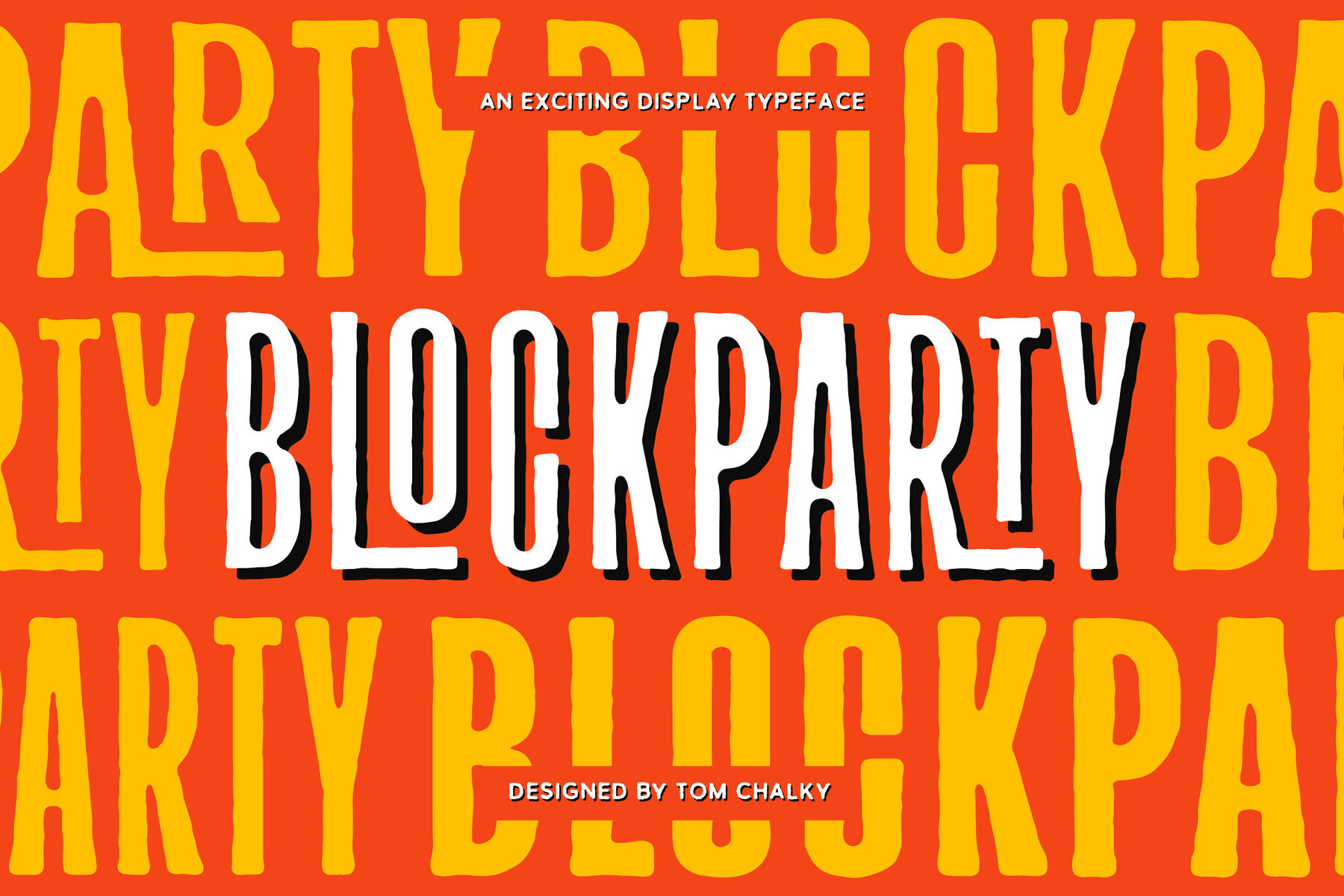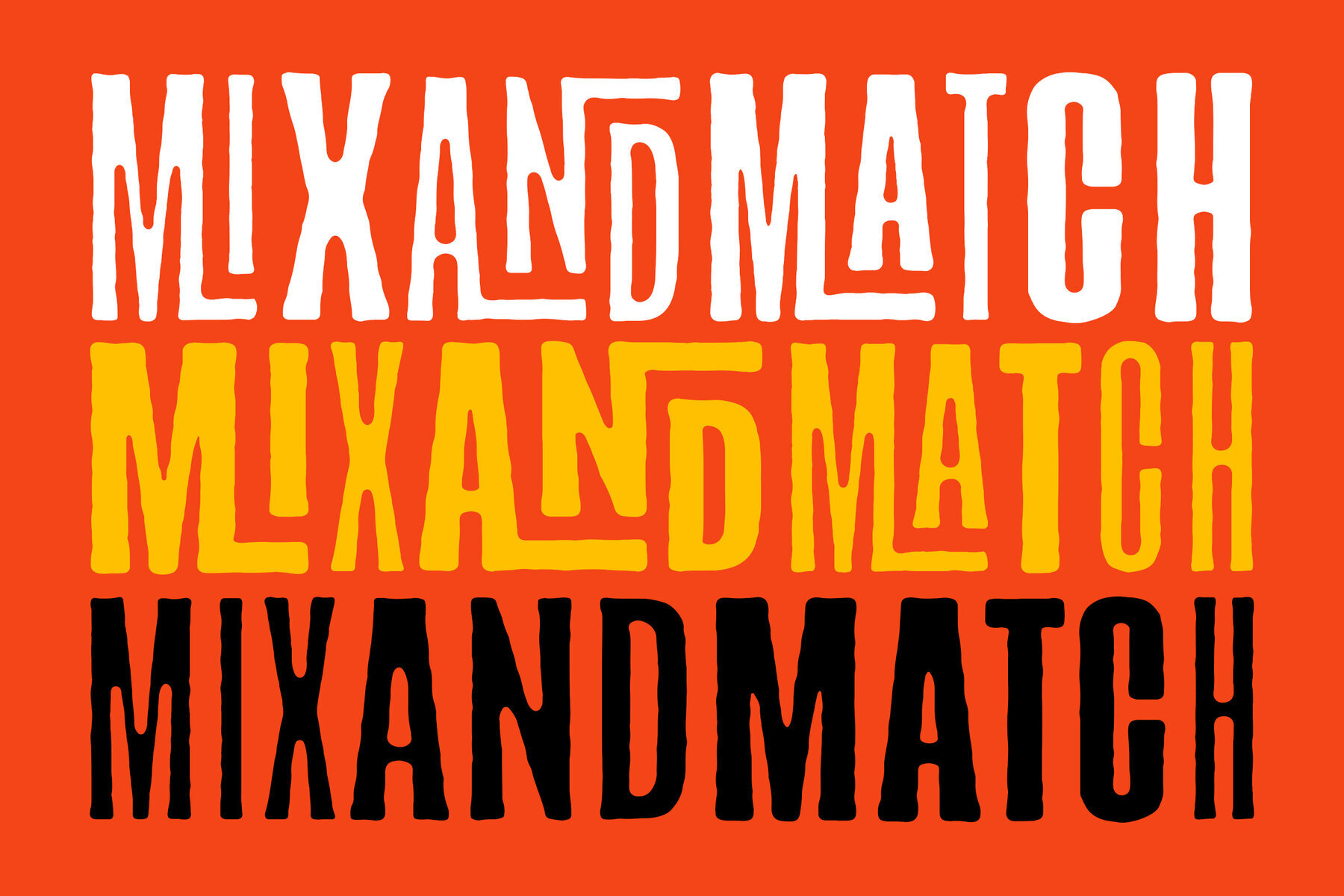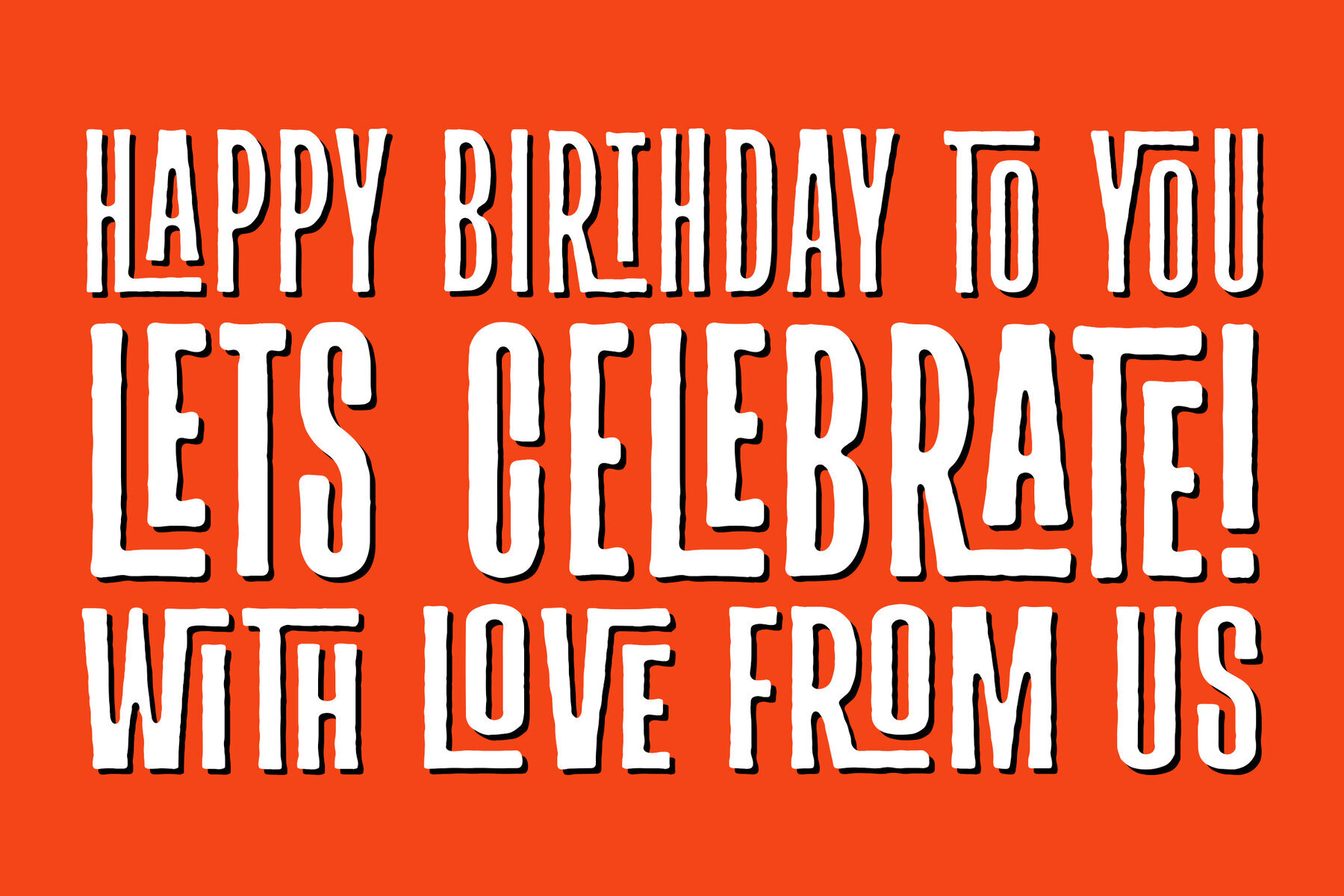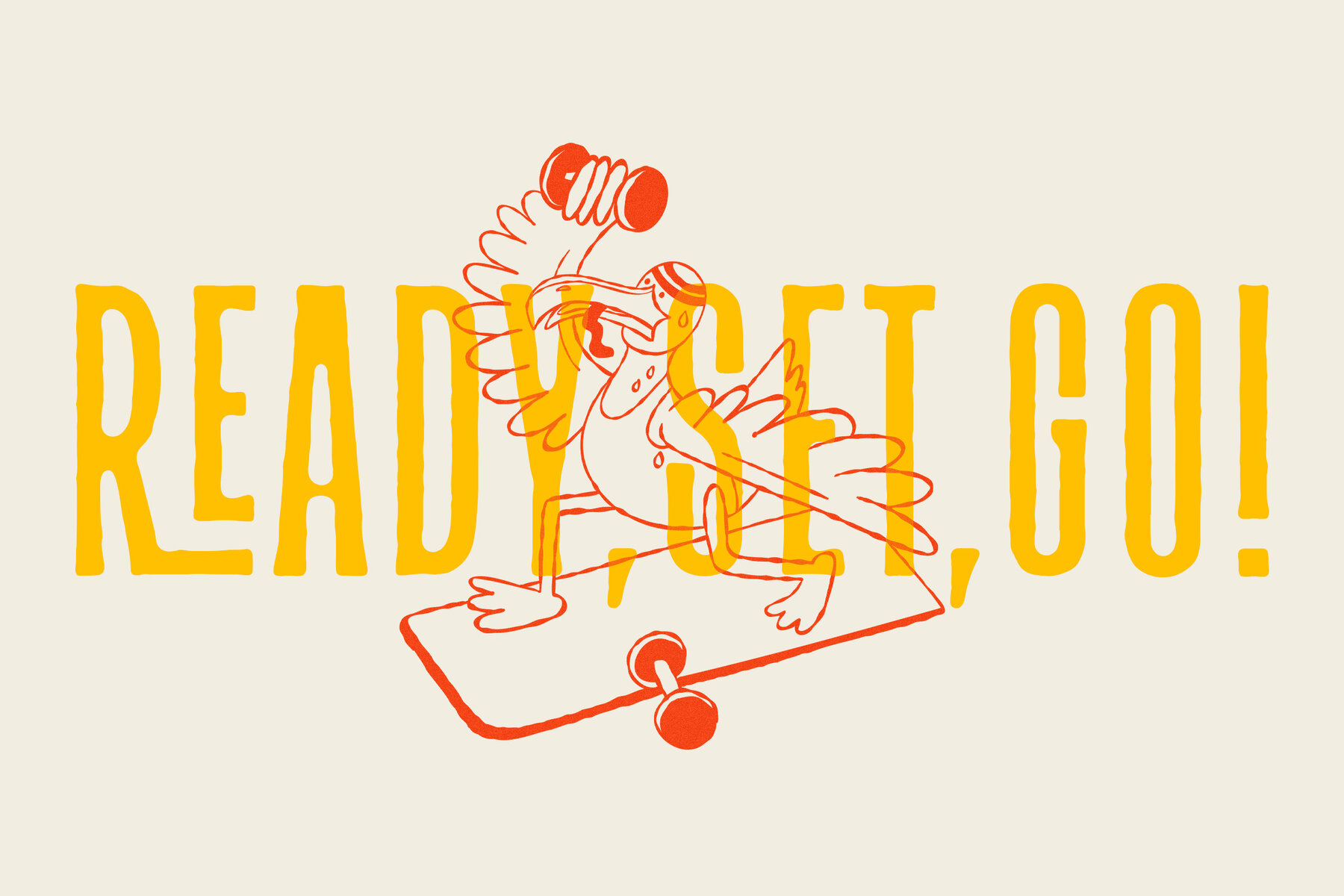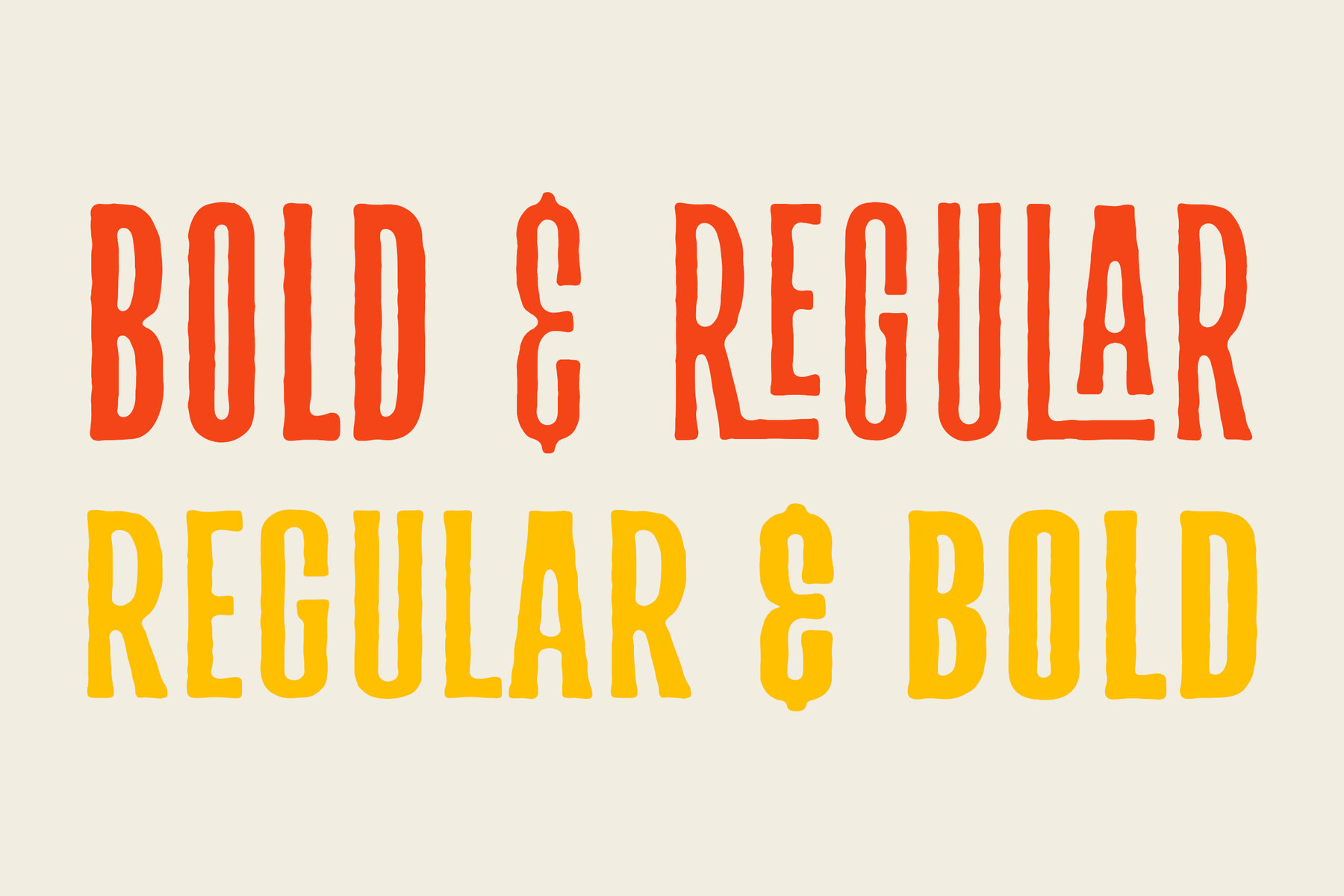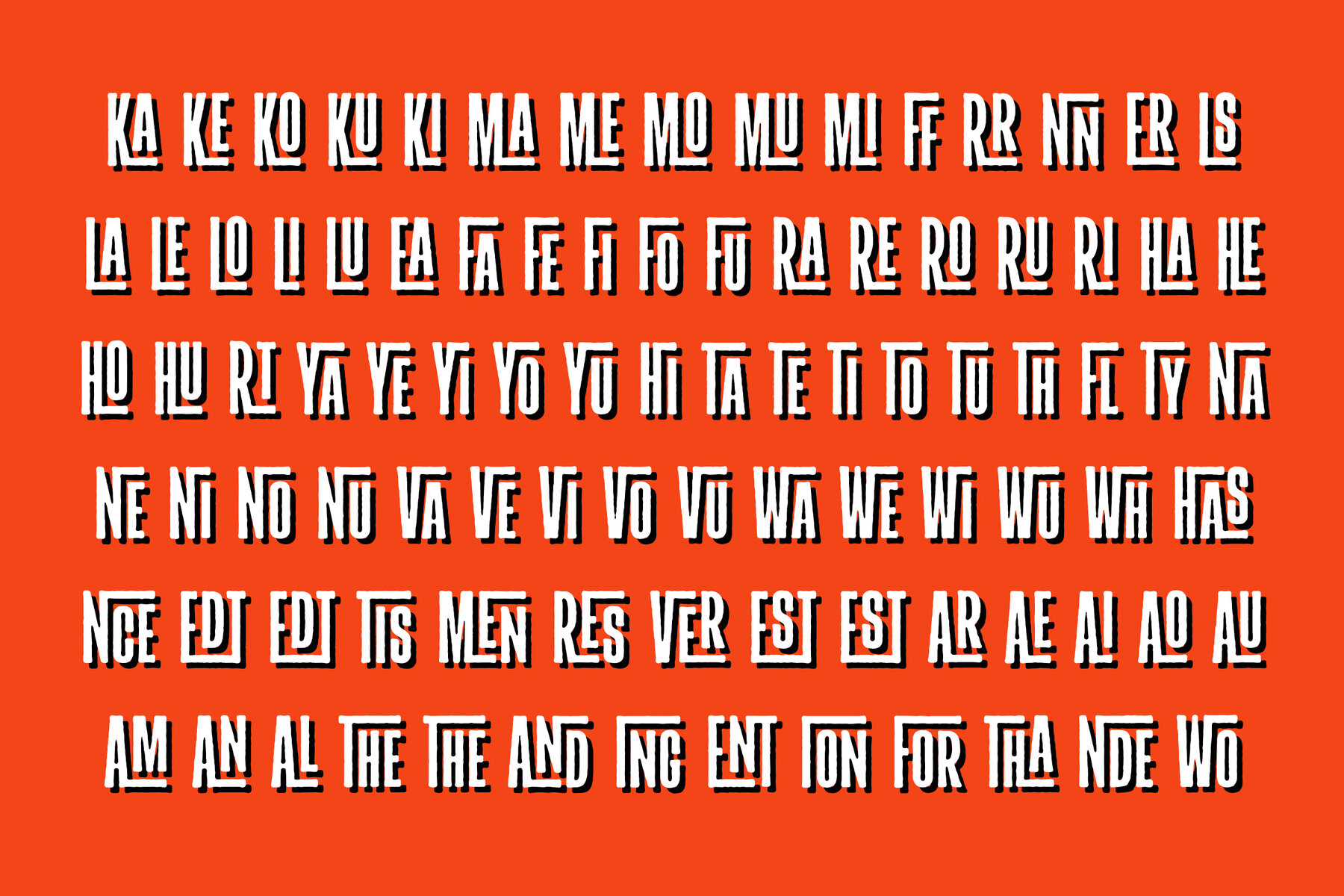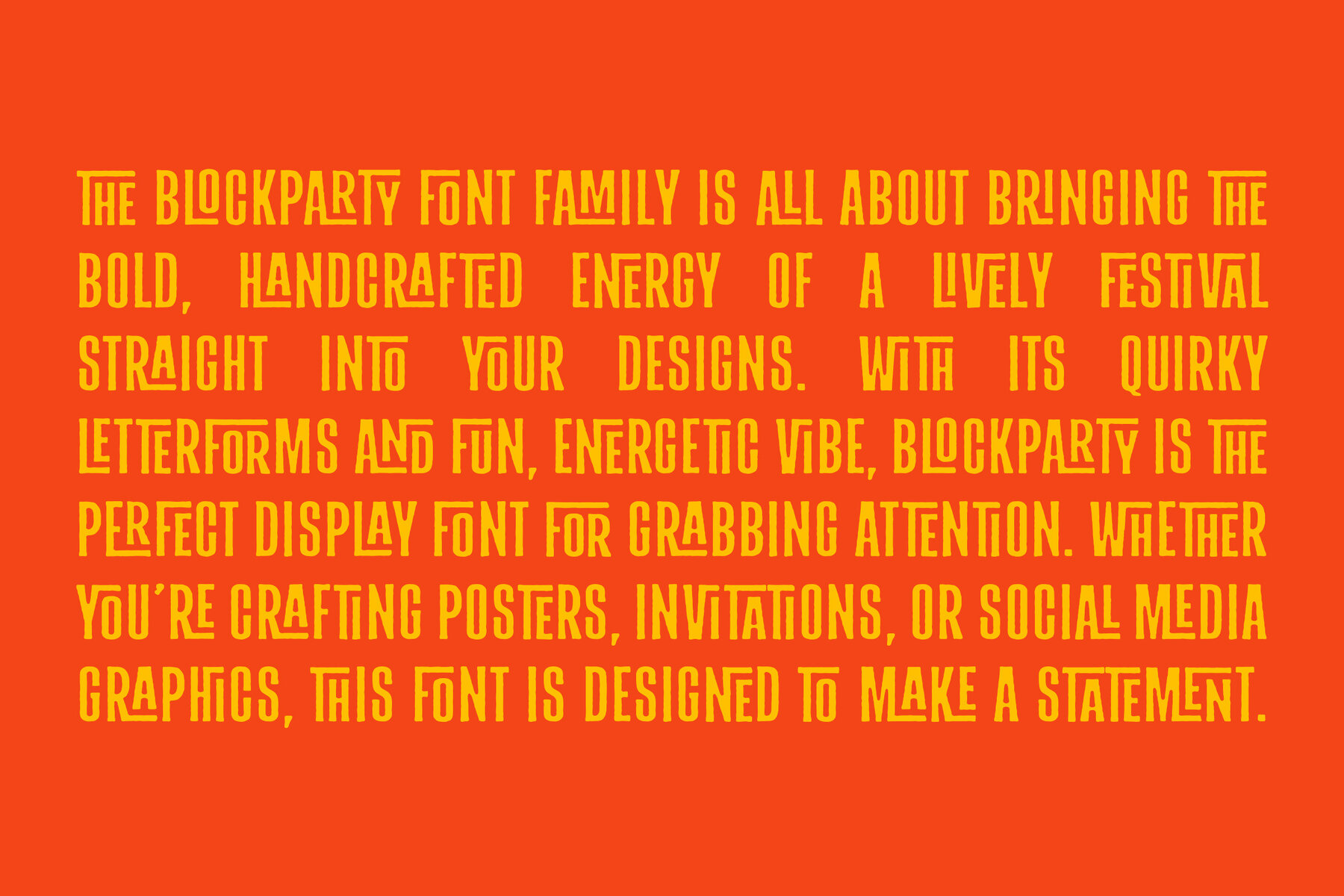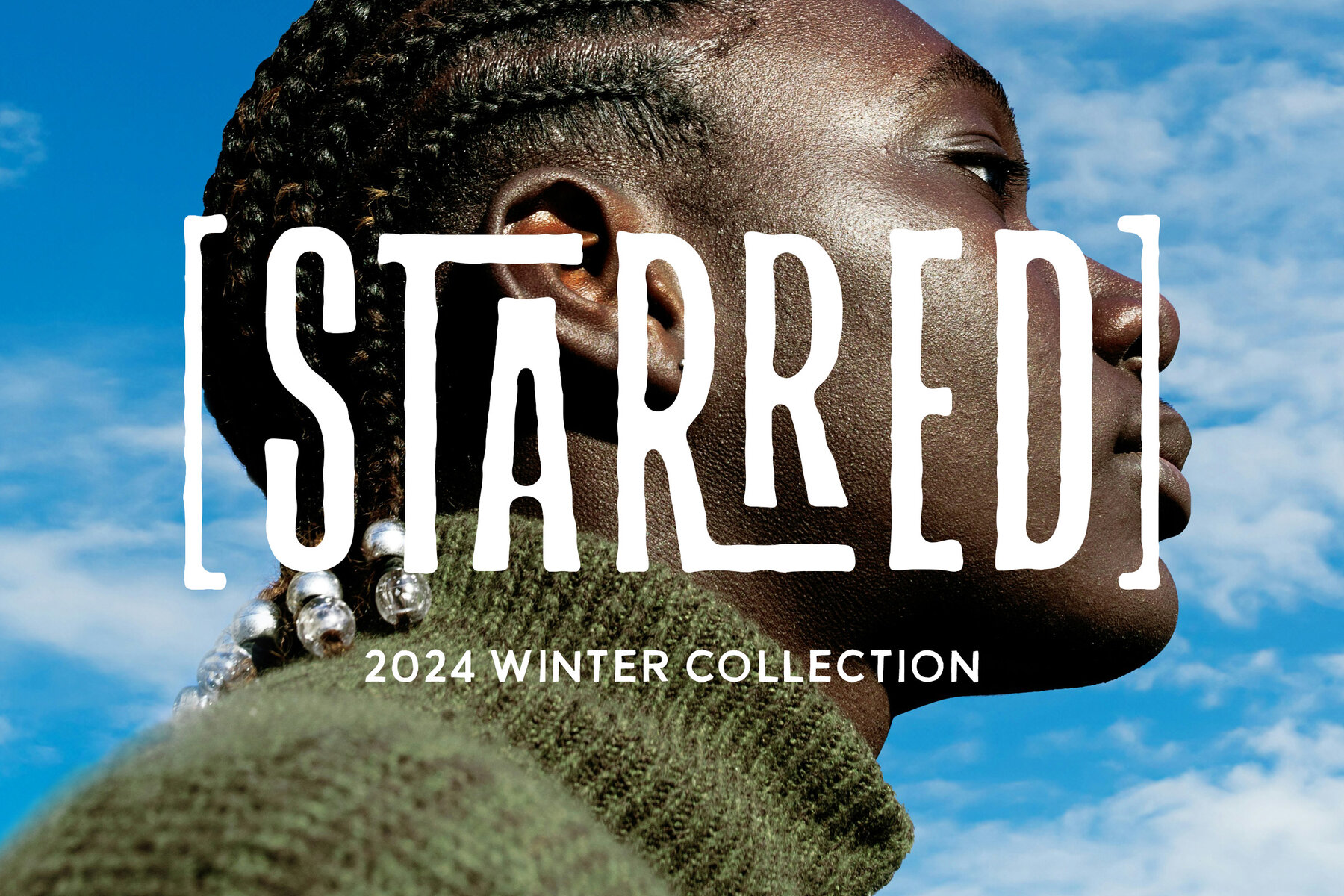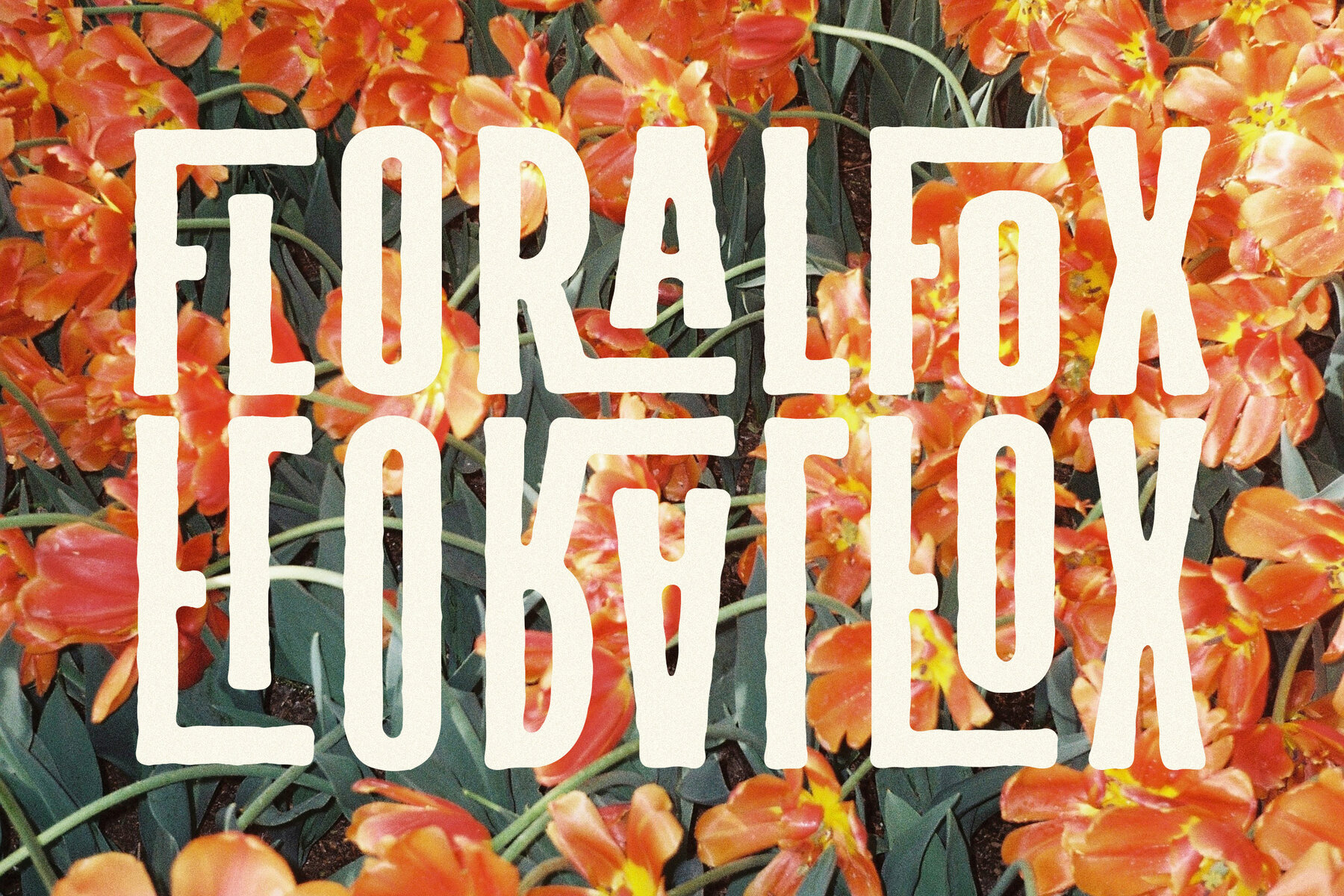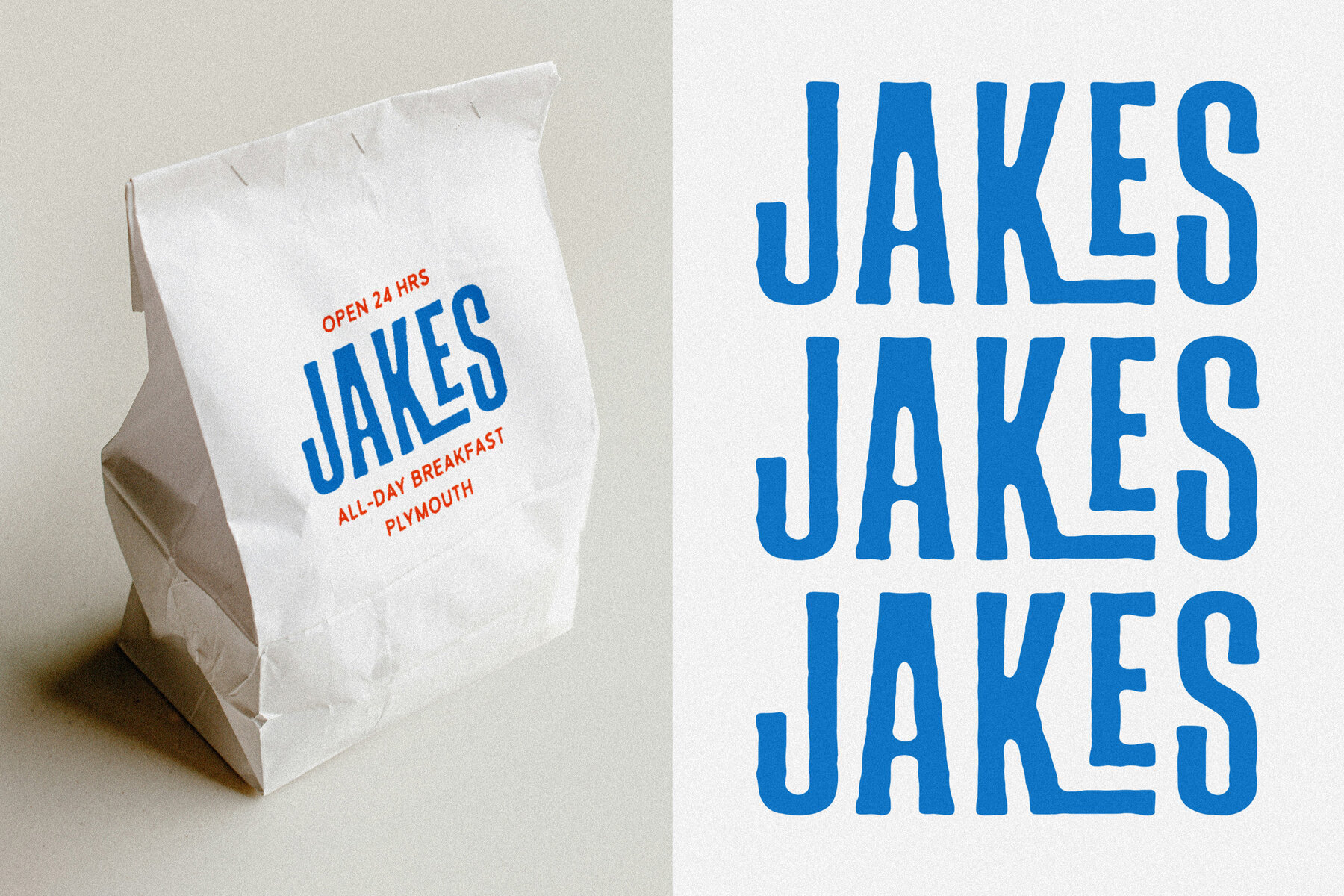
TC Blockparty Font
Introducing the Blockparty Font Family – bold, handcrafted, and packed with bundles of energy. With big, quirky letterforms, Blockparty is designed to stand out! Whether you're working on posters, packaging, or social media graphics, this font is all about grabbing those all-important eyeballs. Featuring over 90 unique discretionary ligatures, it's easy to add a playful edge to your typography. Blockparty is versatile and fun—great for anything from party-themed projects to bold colorful branding. Key Features: